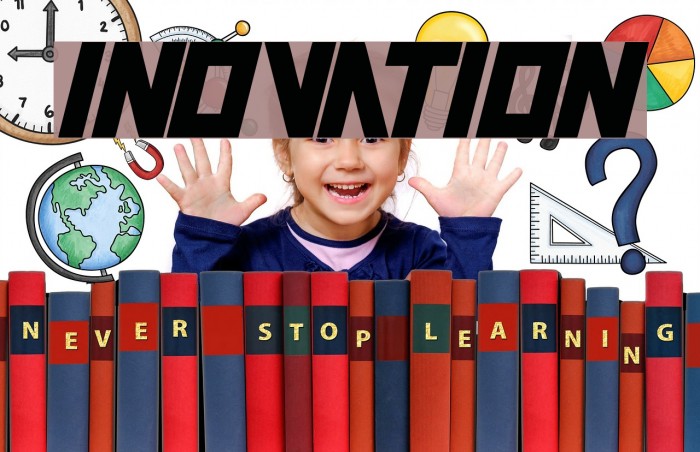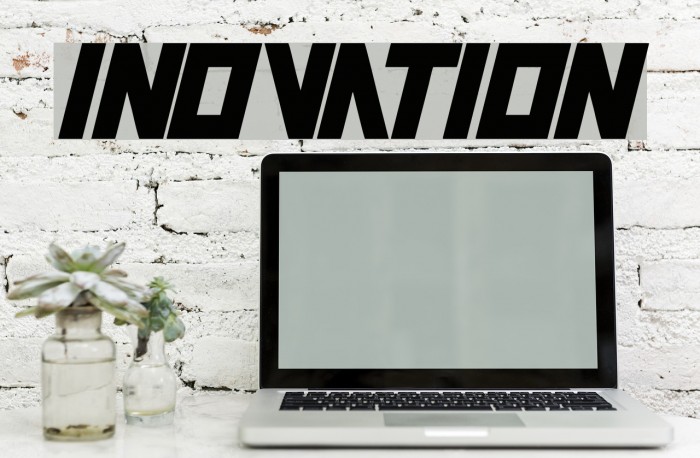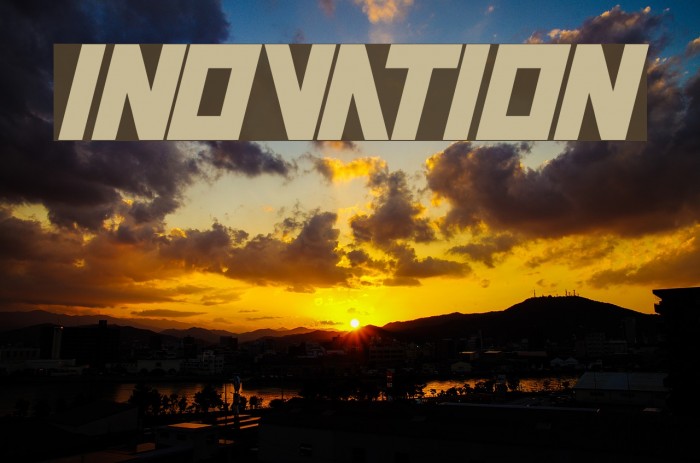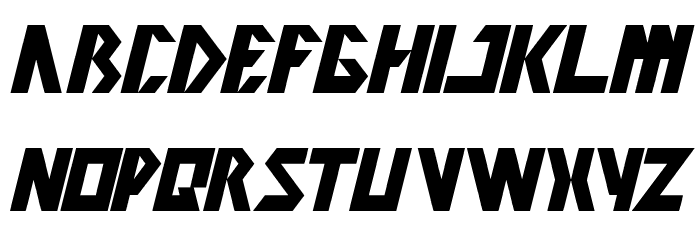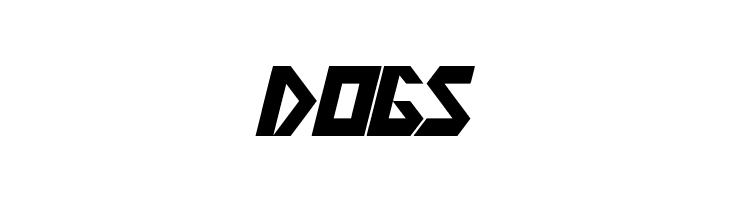
INOVATION Font
INOVATION Description
This font features a bold and dynamic design with sharp, angular edges and a futuristic aesthetic. The characters are constructed with a geometric precision that gives them a strong, impactful presence. The uppercase letters are particularly striking, with a consistent slant that adds a sense of motion and energy. The font's unique style makes it stand out, making it ideal for projects that require a modern and edgy look. The overall design is cohesive, with each letter maintaining a uniform width and weight, contributing to a balanced and harmonious appearance.
A bold, angular font with a futuristic and dynamic style from Uncategorized fonts.
- Proposed Projects: Ideal for branding, logos, posters, and any design needing a modern, edgy touch.
- Use Case: Logos, Headlines